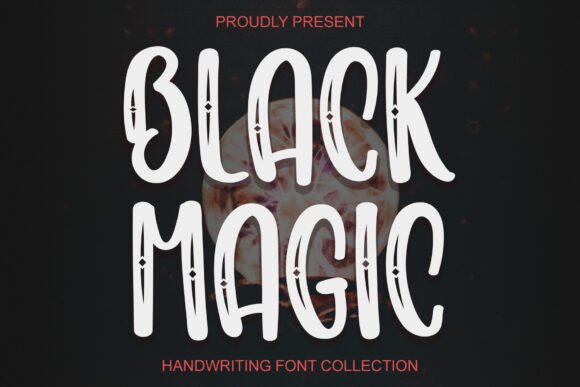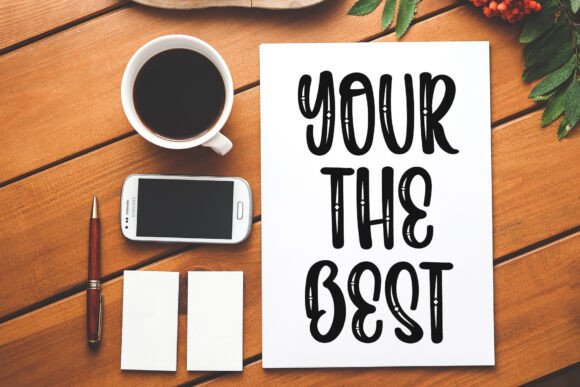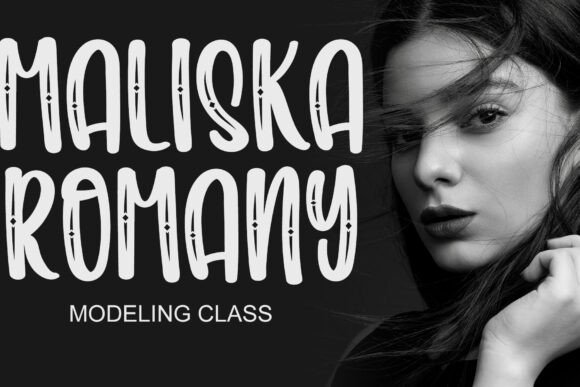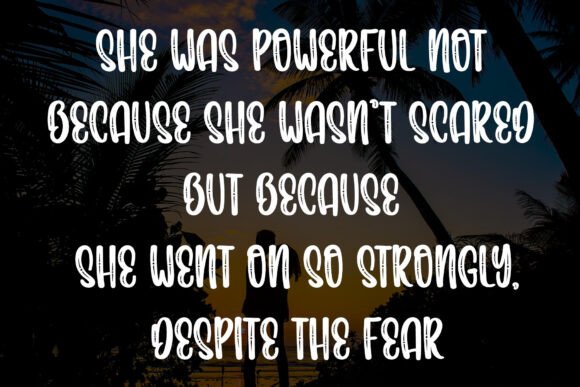
Black Magic Font: A Cute Playful Brush Font for Cricut & DIY Projects
About the Black Magic Font
Add a touch of class to your work with the Black Magic Font, a truly exceptional typeface. Black Magic – A Sweet & Playful Brush Font
Introducing Black Magic– a delightfully quirky playful display font that’s as fun as it is eye-catching! With its bouncy, hand-painted brush strokes and sugary charm, this Playful Brush Font is perfect for designs that need a burst of joy and energy. Whether you’re designing candy packaging, a playful logo, or a vibrant Instagram quote, Black Magic adds a deliciously whimsical touch. Sweeten up your designs with this irresistibly fun display font!
Black Magic’s playful energy makes it ideal for headlines, short text blocks on posters, and branding applications where a fun, approachable feel is desired. It excels in projects related to children’s products, confectionery, or brands focused on lightheartedness and creativity. However, its brush script nature makes it unsuitable for body text or UI elements requiring high readability.
The font’s core personality is undeniably playful and slightly whimsical, but maintains a friendly accessibility. This makes it a strong choice for designs requiring a touch of sweetness without sacrificing clarity in short bursts of text.
Black Magic Font Usage Examples
Black Magic Font Example